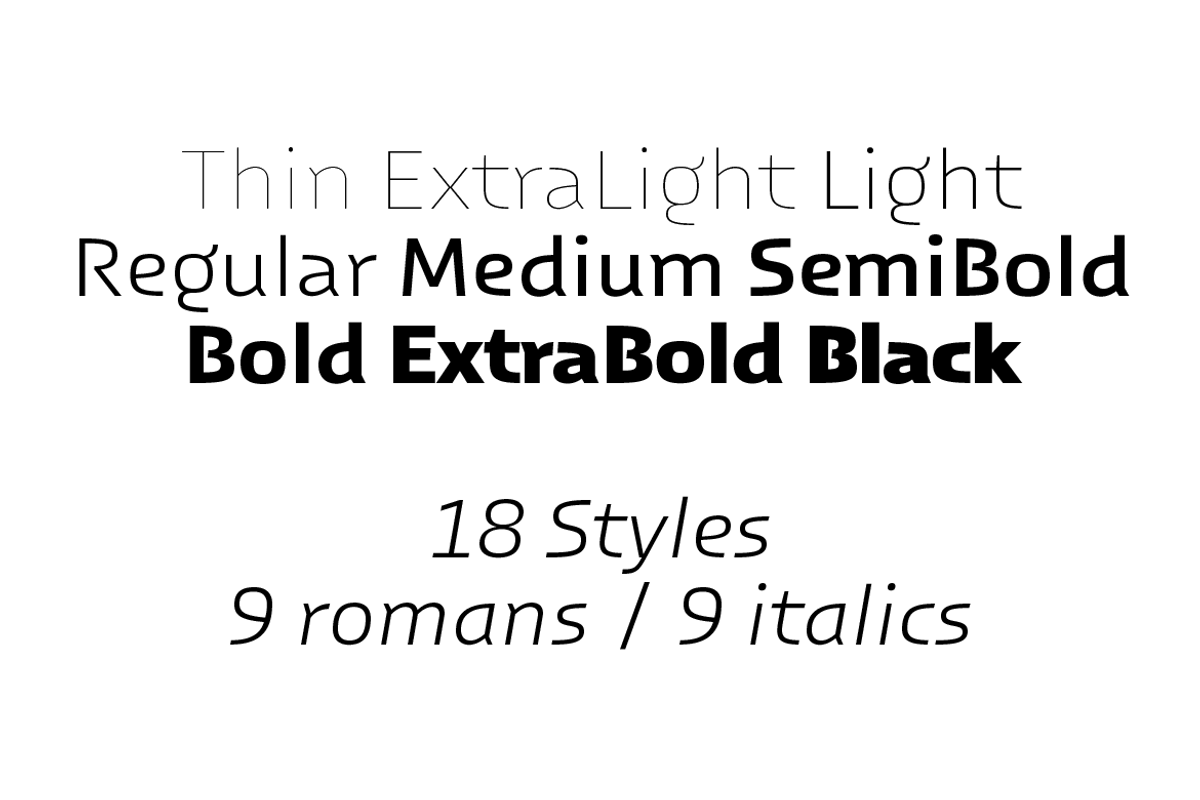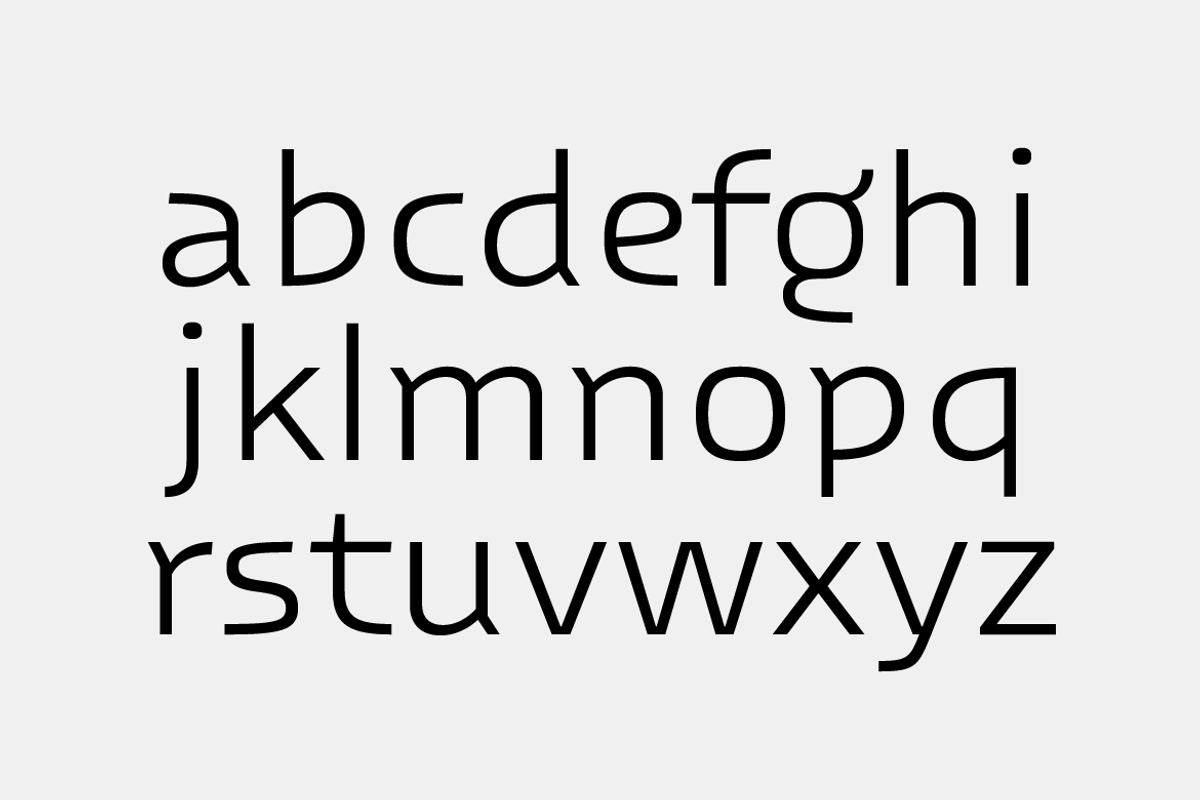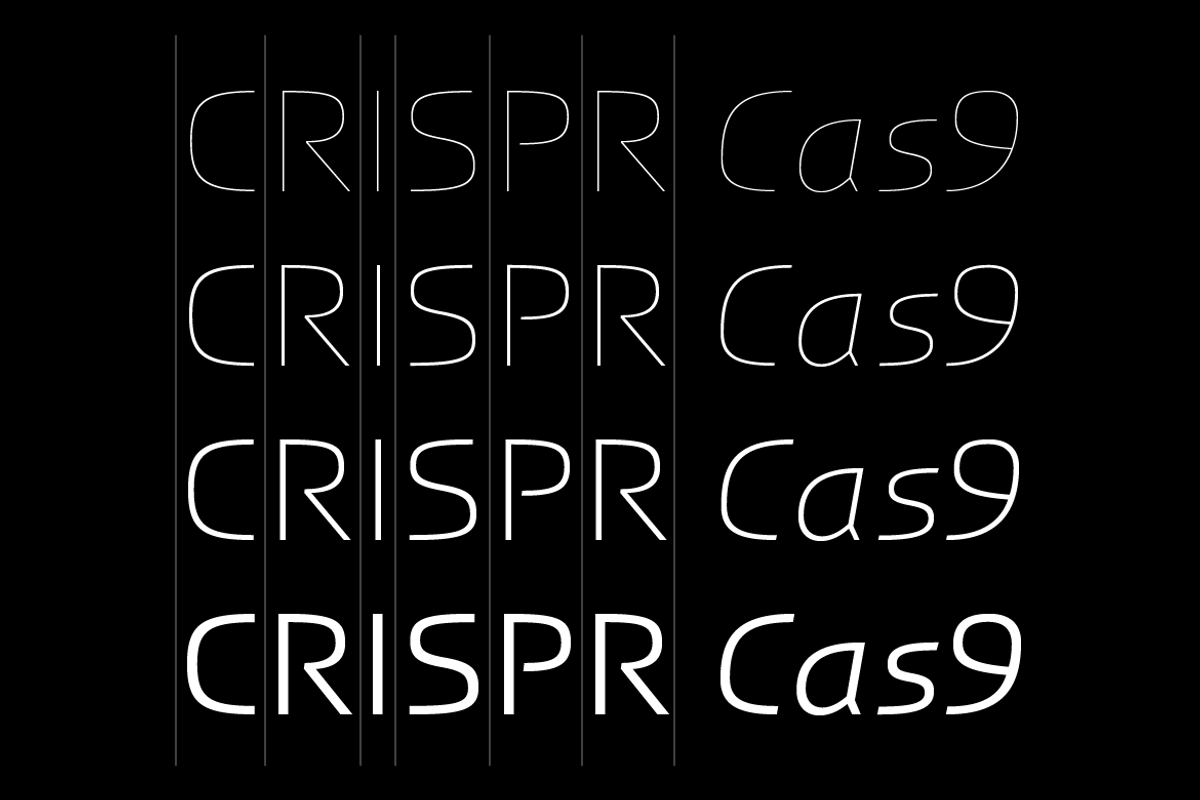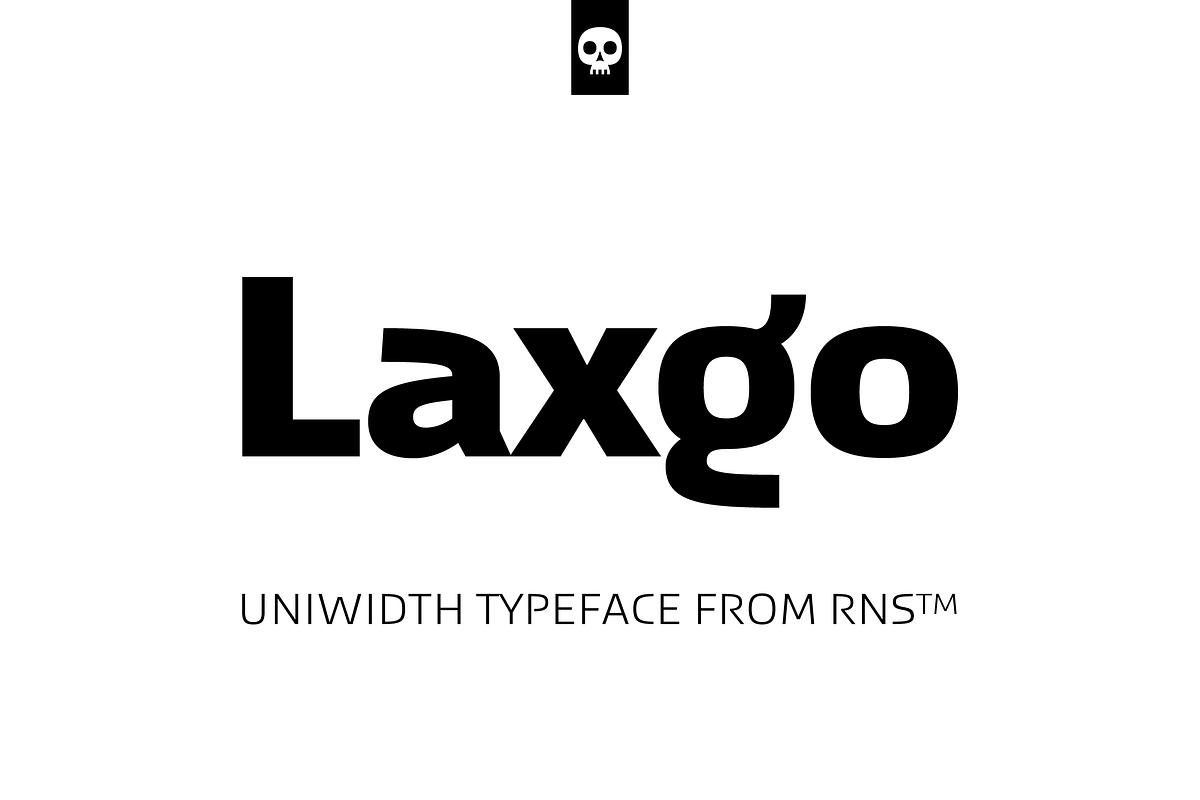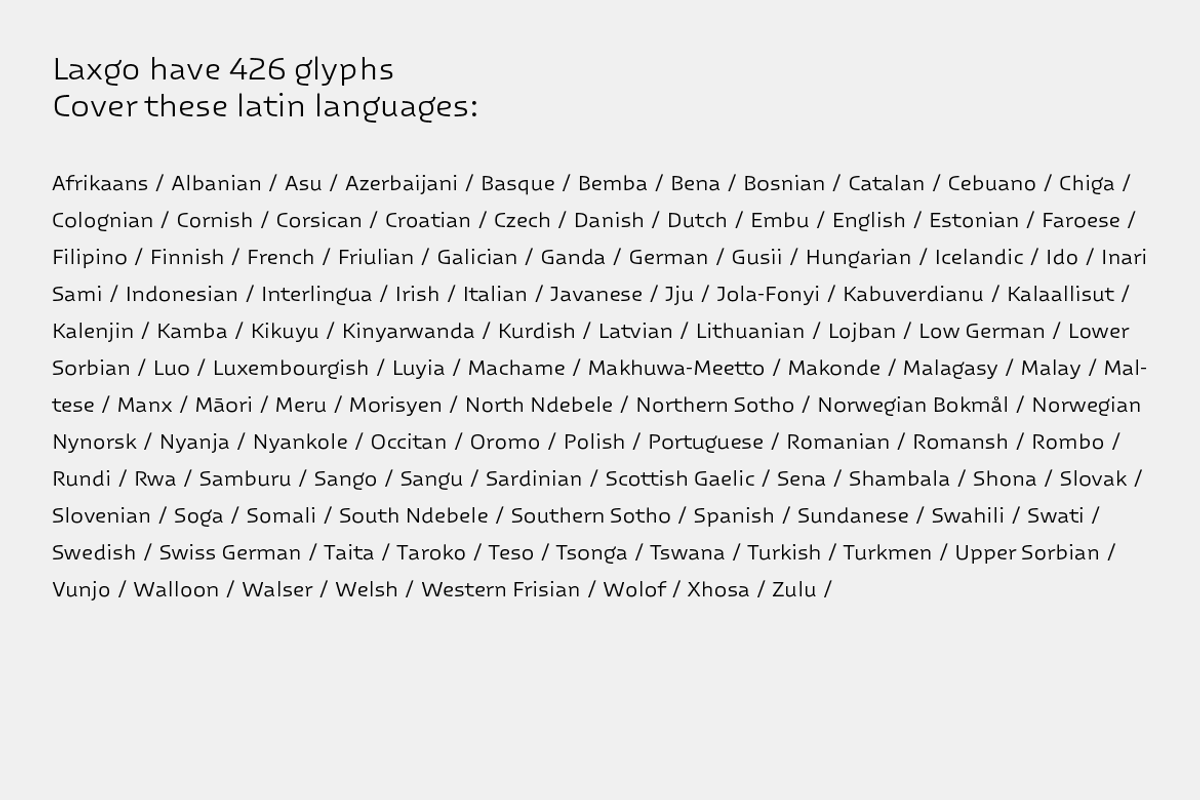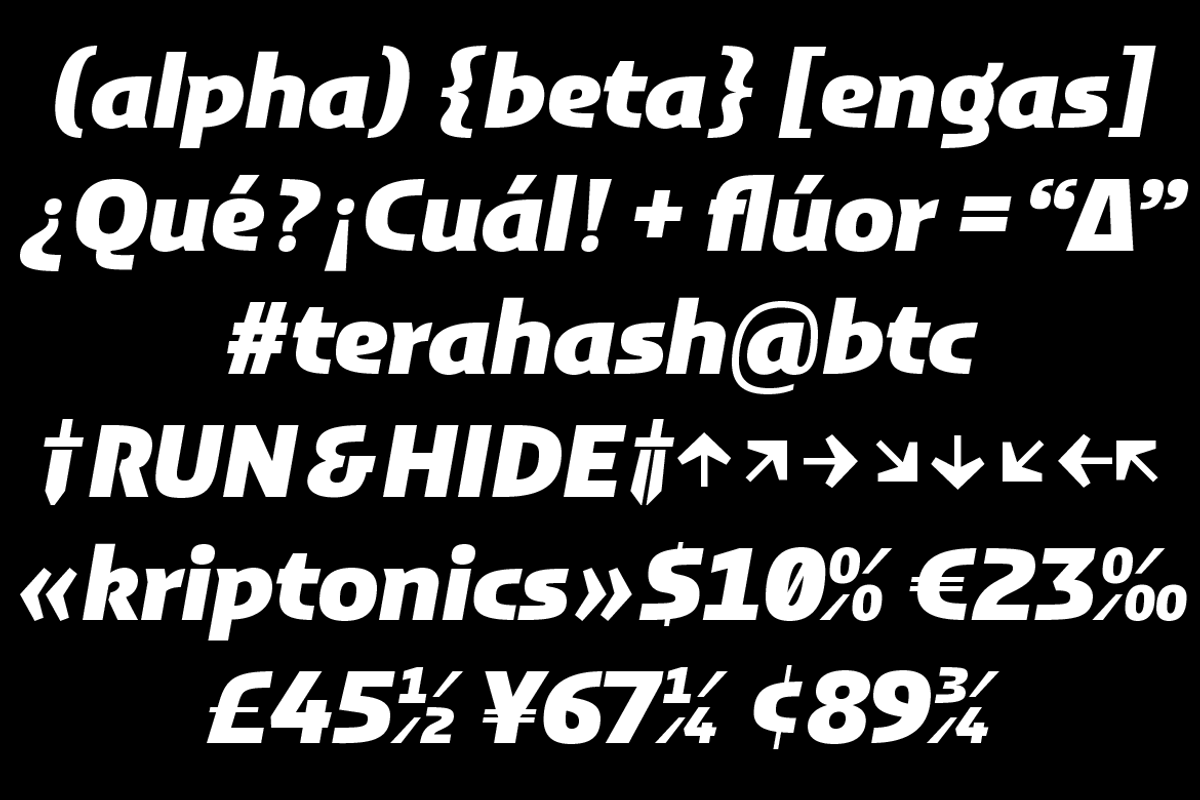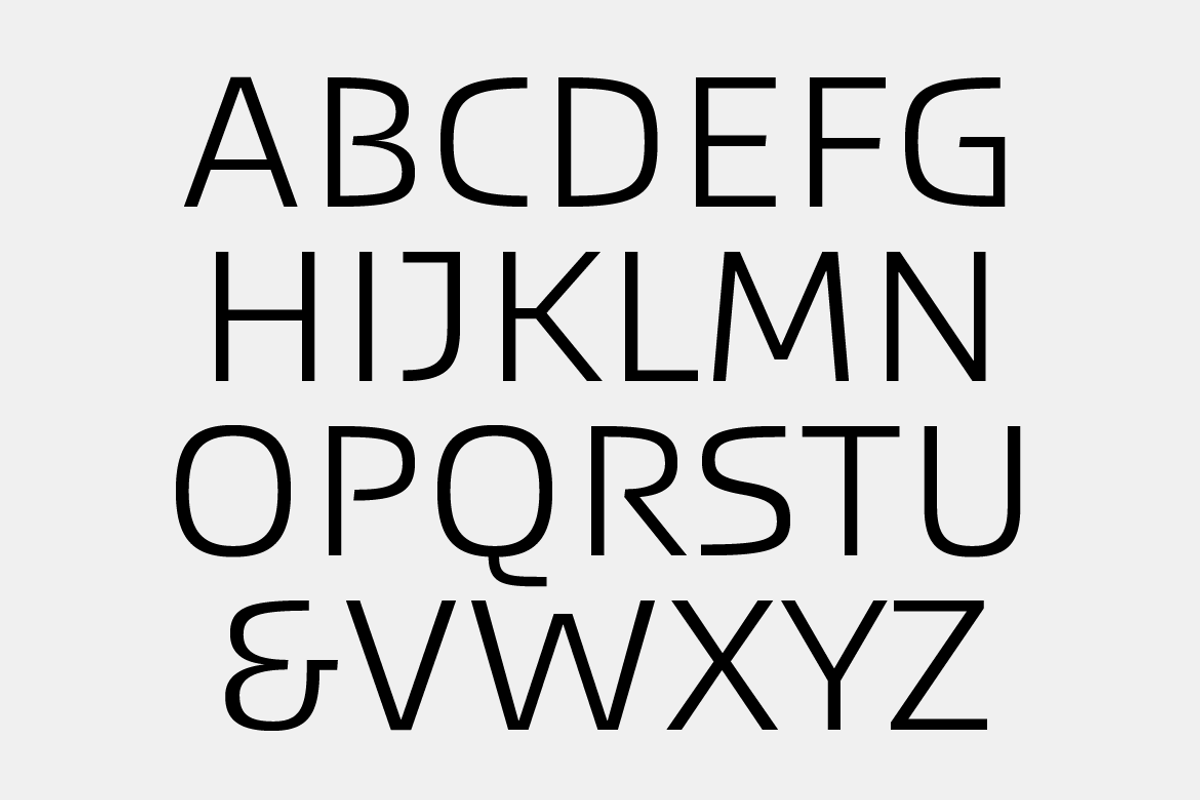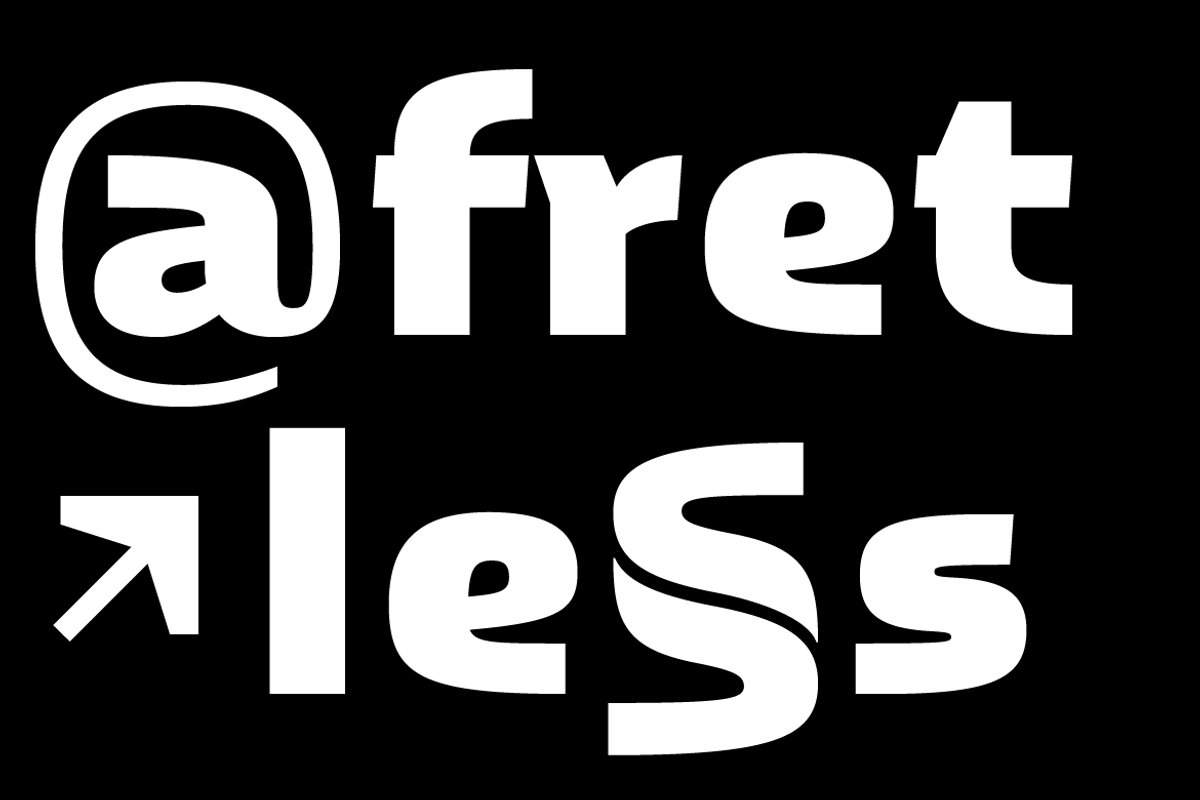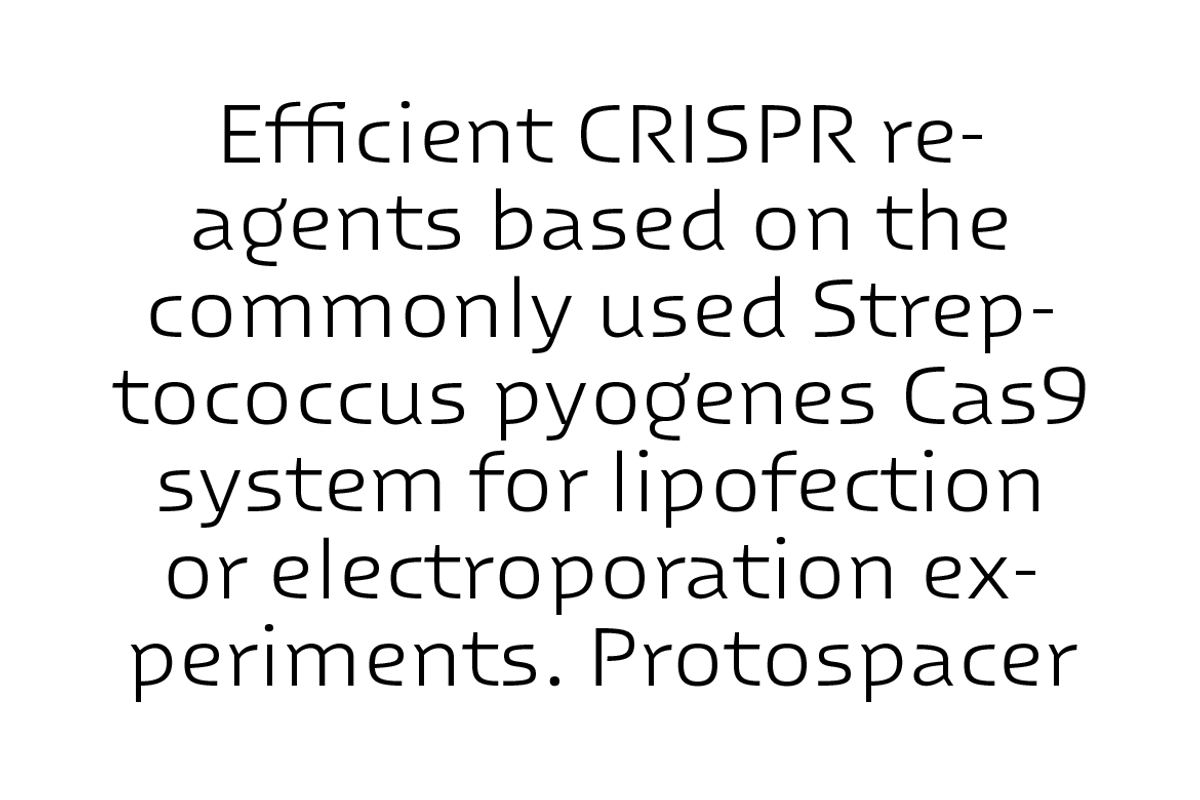
RNS Laxgo
Laxgo, a contemporary typeface crafted by RNS Fonts (Yorlmar Campos & Fernando Pujolá) embodies modern design with a unique touch. Its bold and precise strokes reflect 21st-century typography, blending geometric precision with creativity. This versatile font is a powerful tool for designers, equally legible in small and large sizes, making it ideal for a wide range of applications, from graphic design to branding. Laxgo is not just a typeface but a statement of style and originality, capturing your passion and dedication. It's a reflection of your vision in the contemporary design landscape, offering distinctiveness, versatility, and meticulous attention to detail.